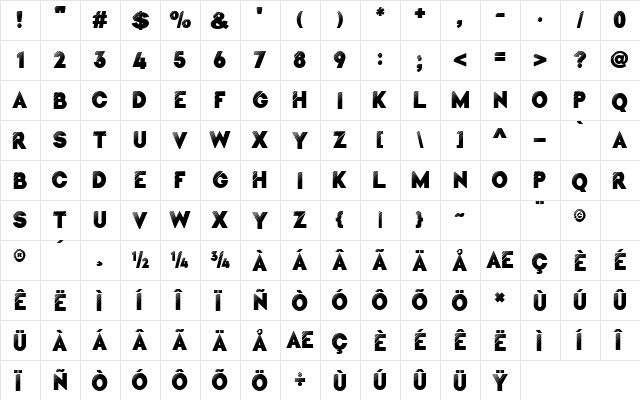
Nuvel Regular
| Foundry | 177Studio.com |
| Designer | 177Studio |
Design Context for Nuvel Typeface
Nuvel offers clean, dependable letterforms without strong stylistic allegiance, making it a practical choice for designers who need flexibility.
Pro Tip: Pair Nuvel with a font of contrasting weight or personality to build a more expressive typographic hierarchy.